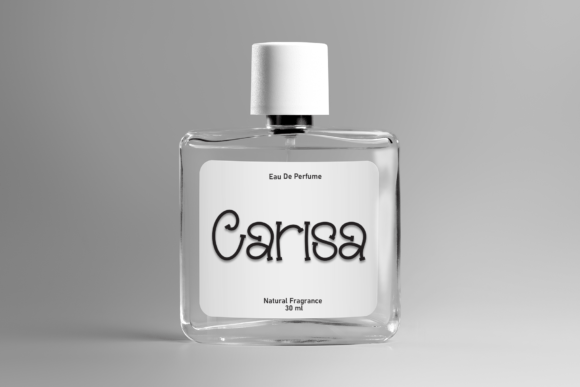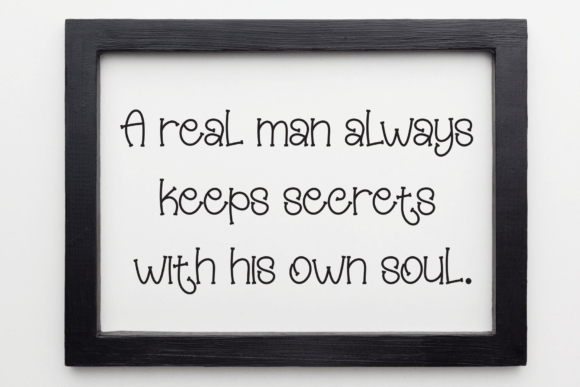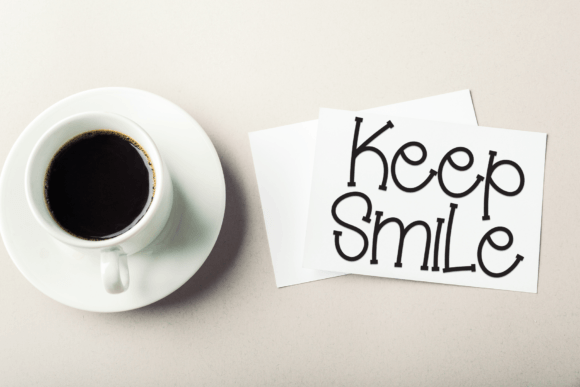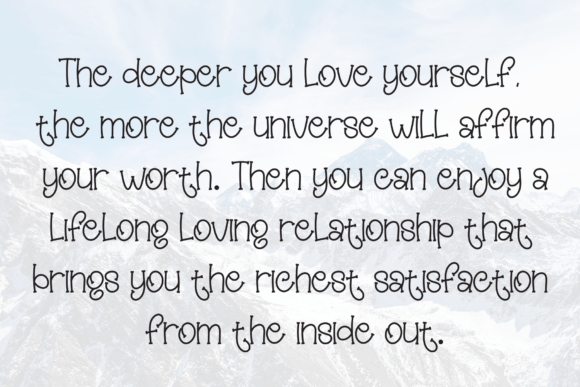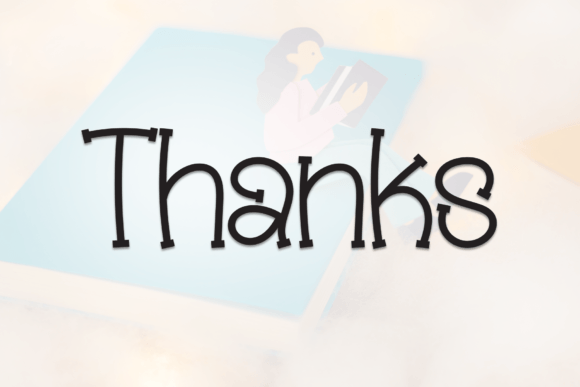
Introducing Happy Story Font: The Sweet and Friendly Handwritten Font for Your Creative Projects
Are you a designer, crafter, or DIY enthusiast looking for a font that can add a touch of warmth and personality to your projects? Look no further than Happy Story Font, a sweet and friendly handwritten font that’s perfect for a wide range of designs. With its natural and unique style, Happy Story Font is incredibly versatile and can be used for everything from greeting cards and invitations to branding and packaging.
The Characteristics of Happy Story Font
Happy Story Font is a handwritten font that’s designed to evoke a sense of joy and friendliness. Its natural and unique style makes it stand out from more traditional fonts, and its sweet and approachable tone makes it perfect for projects that require a personal touch. Whether you’re creating a children’s book, a craft tutorial, or a social media graphic, Happy Story Font is sure to bring a smile to your audience’s faces.
The Benefits of Using Happy Story Font
So why choose Happy Story Font for your next project? Here are just a few benefits of using this wonderful font:
- Versatility: Happy Story Font is incredibly versatile and can be used for a wide range of designs, from formal and informal projects.
- Unique Style: Happy Story Font has a natural and unique style that will set your projects apart from the crowd.
- Easy to Read: Despite its handwritten nature, Happy Story Font is easy to read and understand, making it perfect for body text and headings.
- Fun and Friendly: Happy Story Font has a sweet and friendly tone that’s sure to bring a smile to your audience’s faces.
How to Use Happy Story Font in Your Designs
Using Happy Story Font in your designs is easy! Here are a few tips to get you started:
- Pair it with Other Fonts: Happy Story Font pairs well with a variety of other fonts, including serif and sans-serif fonts.
- Use it for Headings and Body Text: Happy Story Font is perfect for both headings and body text, making it a great choice for long-form content.
- Add it to Your Branding: If you’re looking for a font that can help you establish a consistent brand voice, Happy Story Font is a great choice.
- Experiment with Colors and Textures: Happy Story Font looks great in a variety of colors and textures, so don’t be afraid to experiment and find the perfect combination for your project.
Who Can Benefit from Happy Story Font?
Happy Story Font is perfect for a wide range of designers, crafters, and DIY enthusiasts, including:
- Graphic Designers: Happy Story Font is a great choice for graphic designers who need a font that can add a touch of personality to their designs.
- Crafters: If you’re a crafter who loves to create handmade cards, invitations, and other paper crafts, Happy Story Font is a great choice.
- DIY Enthusiasts: Happy Story Font is perfect for DIY enthusiasts who love to create their own signs, banners, and other decorative items.
- Small Business Owners: If you’re a small business owner who wants to establish a consistent brand voice, Happy Story Font is a great choice.
In conclusion, Happy Story Font is a sweet and friendly handwritten font that’s perfect for a wide range of designs. With its natural and unique style, Happy Story Font is incredibly versatile and can be used for everything from greeting cards and invitations to branding and packaging. Whether you’re a designer, crafter, or DIY enthusiast, Happy Story Font is sure to bring a touch of warmth and personality to your projects. So why wait? Download Happy Story Font today and start creating your own happy story!